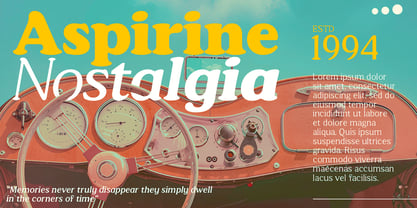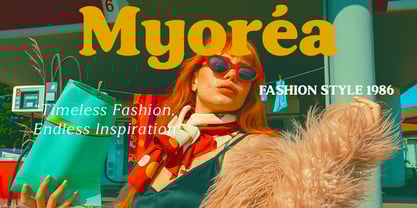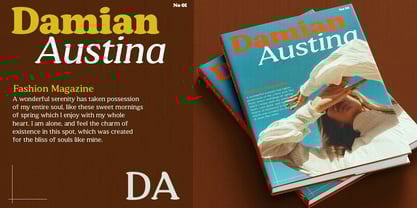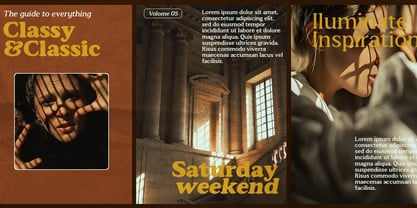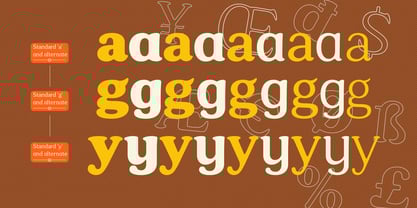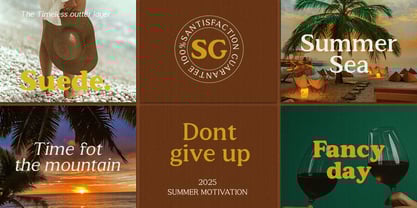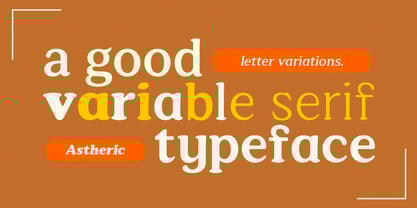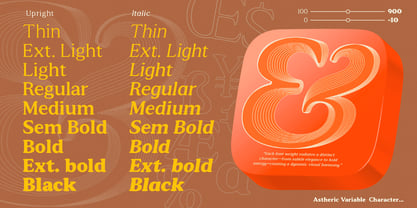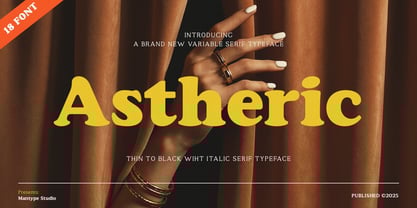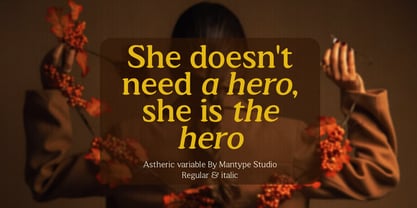
Astheric
by Mantype Studio
The Astheric Font Family was designed by Sulai Man and published by Mantype Studio. Astheric contains 20 styles and family package options.
Astheric is a modern variable serif typeface that perfectly blends classic elegance with contemporary flair. With its smooth curves and bold yet refined serifs, Astheric delivers a strong, sophisticated, and highly recognizable character. This typeface comes in 18 styles — from Thin to Black, each accompanied by an Italic version. Its versatility allows you to create expressive and consistent typography across a wide range of design projects. Astheric is ideal for branding, logos, editorials, packaging, posters, and headlines that seek a sense of timeless luxury. Its graceful yet confident letterforms radiate elegance, strength, and a bold modern aesthetic.
About Mantype Studio
Mantype Studio was founded in 2021 and is run by Sulaiman.I love exploring and seeing how the typeface reflects the personality of the brand. Now pursuing my new passion completely from my home studio. Turned my freelance business into a type designer. I want to continue to develop my creativity and use my passion to bring greater benefits to myself and the designer community. I concentrate on handcrafted quality fonts, mostly script styles and display fonts. I love to draw letters, have fallen in love with writing and write letters for a living.